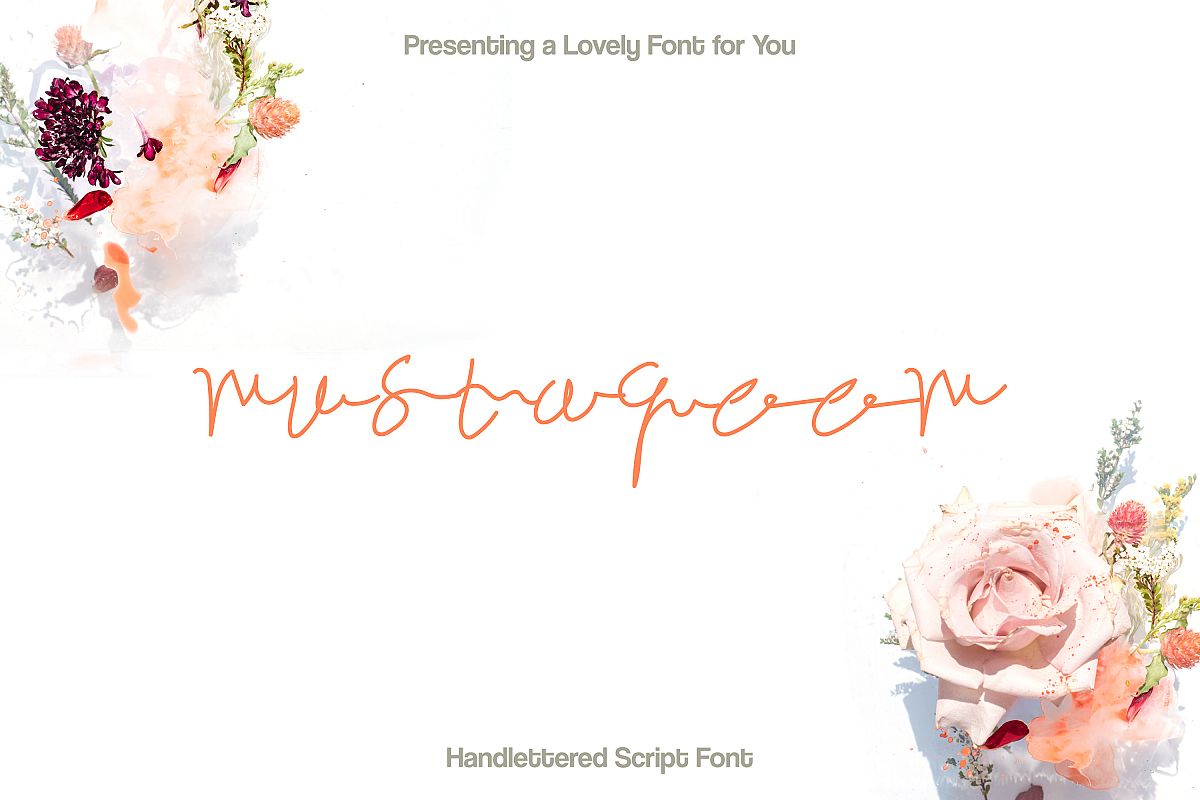
Mustaqeem - Handwritten Signature Font
We all know how much signature font help us create memorable wedding card designs and we can stylized our name. Today, I have an amazing font style with similar capabilities that can take your designs to next level. We have "Mustaqeem" Font that come with coolest signature style you ever needed.
2- Upper and Lowercase Alphabets and Numbers with characters
3- Perfect for wedding cards, invitations, etc